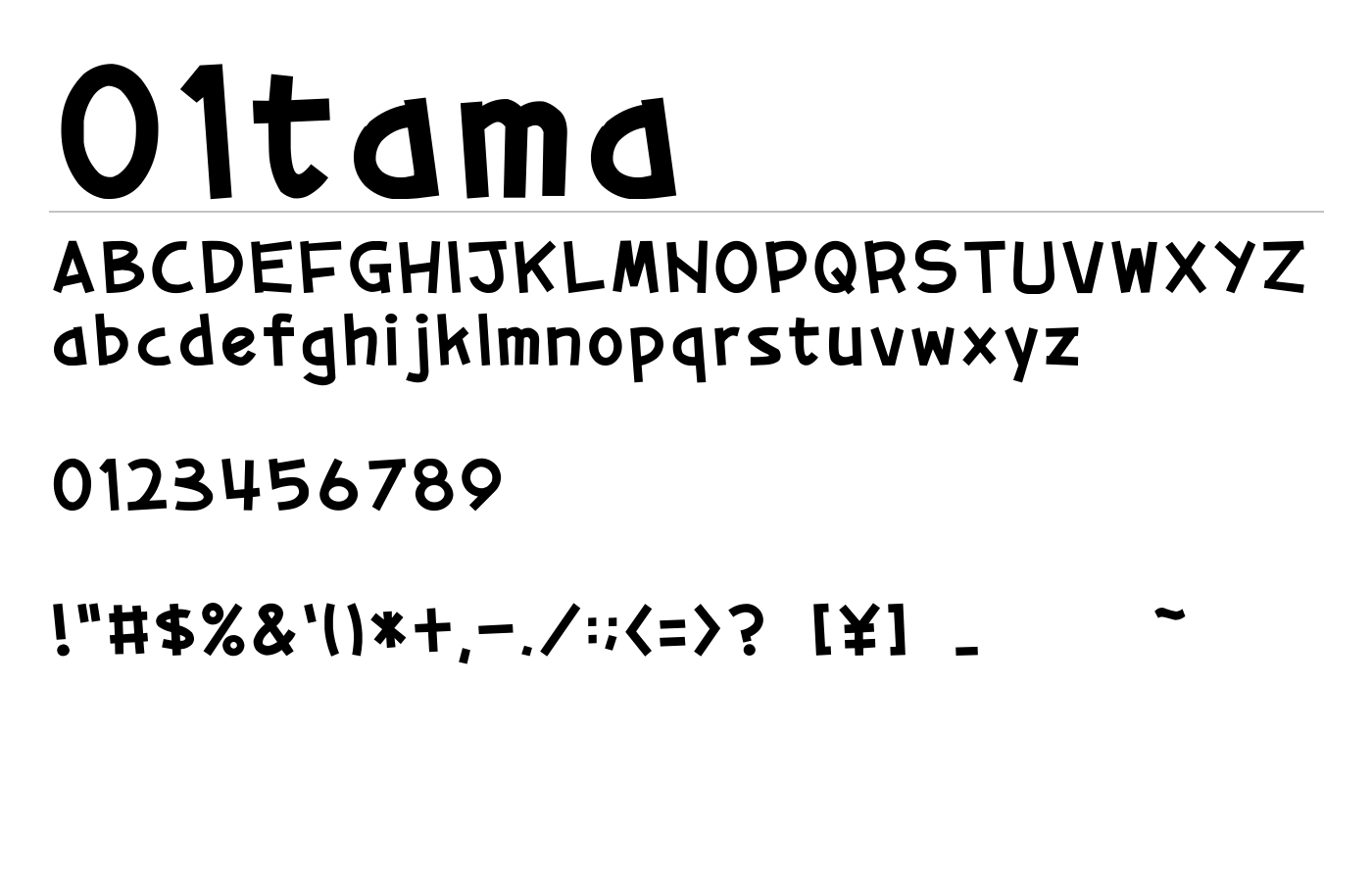
01tama is a playful sans serif font with irregular, slightly quirky letterforms that give it a casual and friendly personality. Its moderate weight, normal width, and lively, hand-drawn feel make it ideal for informal designs, children's books, and creative projects seeking an approachable and fun tone. This font works well in headlines, logos, and playful branding where a unique, energetic style is desired.
01tama Font
About 01tama Font